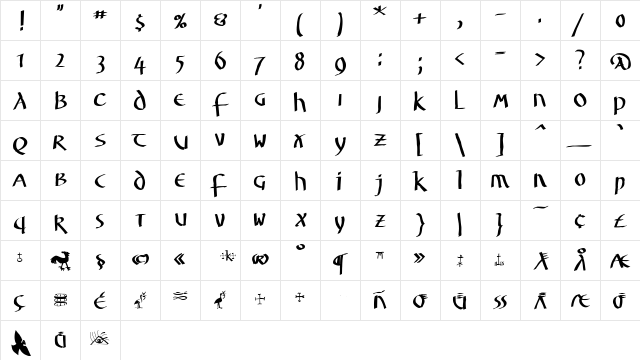
UnzialusLatinus Regular
Design Context for UnzialusLatinus Typeface
UnzialusLatinus is a composed and adaptable typeface that performs quietly and consistently across a wide range of design contexts.